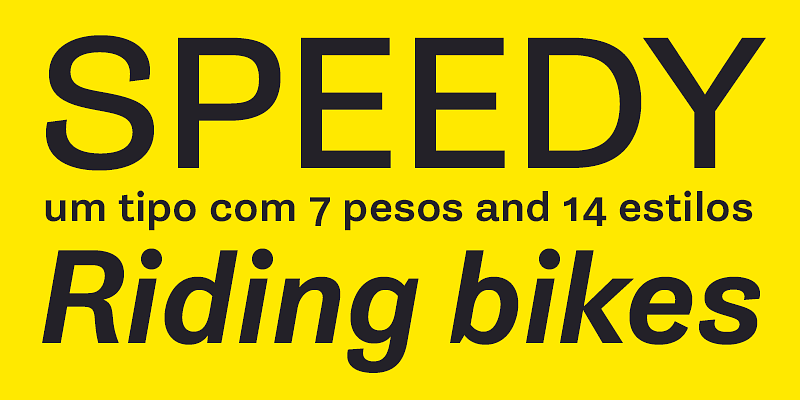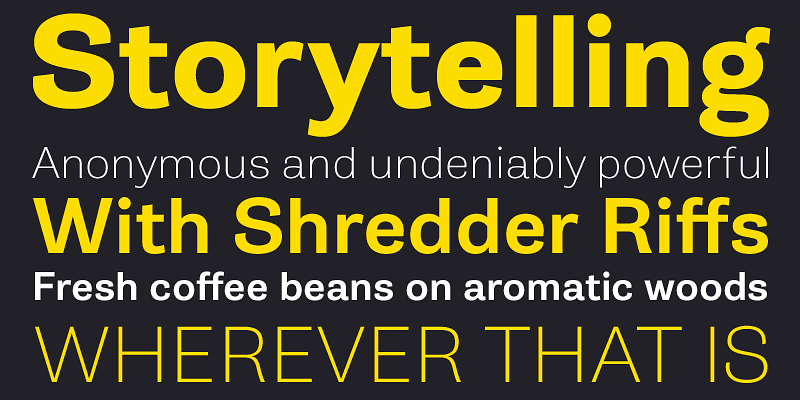
Gira Sans is a grotesque typeface, inspired by the 19th century sans serifs. It’s a modern, human and joyful take on that model.
Rui Abreu
Rui Abreu is a Portuguese type and graphic designer. He studied Graphic Design at FBAUP (Faculdade de Belas Artes da Universidade do Porto), where he graduated in 2003.
In parallel with his interactive media designer job, Rui Abreu has been working on commercial fonts since 2006.